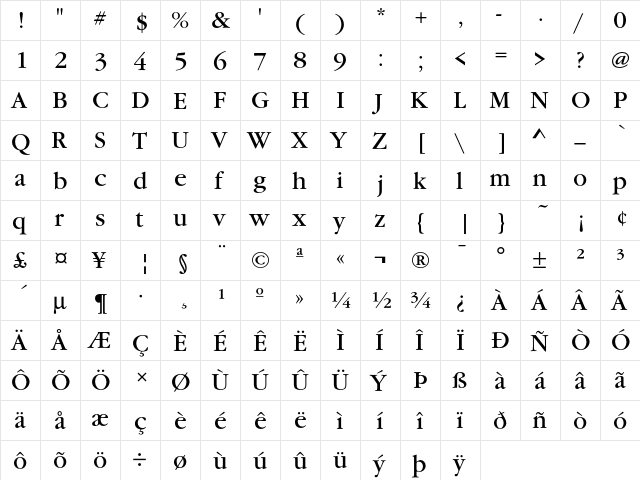
GaramItcTBoo Regular
Design Context for GaramItcTBoo Typeface
GaramItcTBoo is a composed and adaptable typeface that performs quietly and consistently across a wide range of design contexts.